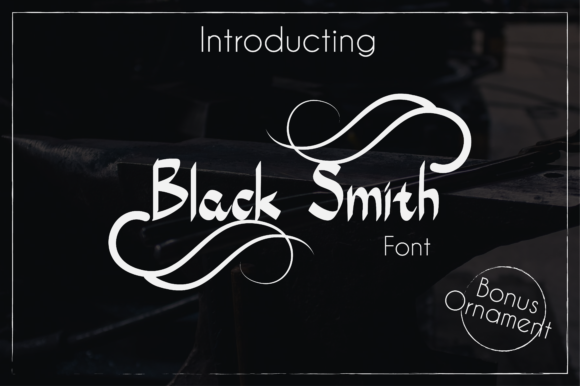
The Designer’s Delight: Unleashing the Power of Black Smith Font
I’ll never forget the time I was working on a branding project for a trendy new coffee shop. My client wanted a font that was both modern and stylish, but also reflected the warmth and coziness of their business. I spent hours scouring through font libraries, but nothing seemed quite right. That was until I stumbled upon Black Smith Font. ✨
It was love at first sight! The elegant, handwritten curves and sleek lines instantly captured the essence of the coffee shop’s brand. I knew right then and there that Black Smith Font was the perfect fit. In this article, I’ll share my experience with this amazing font, its features, and how to make the most of it in your designs.
An Honest Review of Black Smith Font
- ✨ Modern and stylish: Black Smith Font is perfect for designers looking for a fresh and contemporary look.
- ✅ Versatile: It can be used for a wide range of projects, from branding and packaging to invitations and posters.
- 💫 Elegant and sophisticated: The font’s sleek lines and curves give it a luxurious feel that’s perfect for high-end designs.
While Black Smith Font is an excellent choice, there are a few things to keep in mind: 🤔
- ⚠️ Limited use in body text: Due to its elegant and cursive nature, Black Smith Font may not be the best choice for long blocks of body text.
- ⚠️ Requires attention to spacing: To get the most out of this font, you may need to adjust the spacing between letters and words to achieve the perfect balance.
The Backstory of Black Smith Font
Black Smith Font was designed with the modern designer in mind. Its creator, a talented typographer, aimed to craft a font that was both stylish and versatile. Inspired by the elegance of traditional blacksmithing, the font features sleek lines, elegant curves, and a touch of sophistication. 💫
Q: What is Black Smith Font best used for?
A: Black Smith Font is perfect for branding, product packaging, invitations, quotes, t-shirts, labels, posters, and logos.
Q: Is Black Smith Font available in different weights or styles?
A: Currently, Black Smith Font is available in a single weight. However, you can experiment with different sizes, colors, and effects to achieve the desired look.